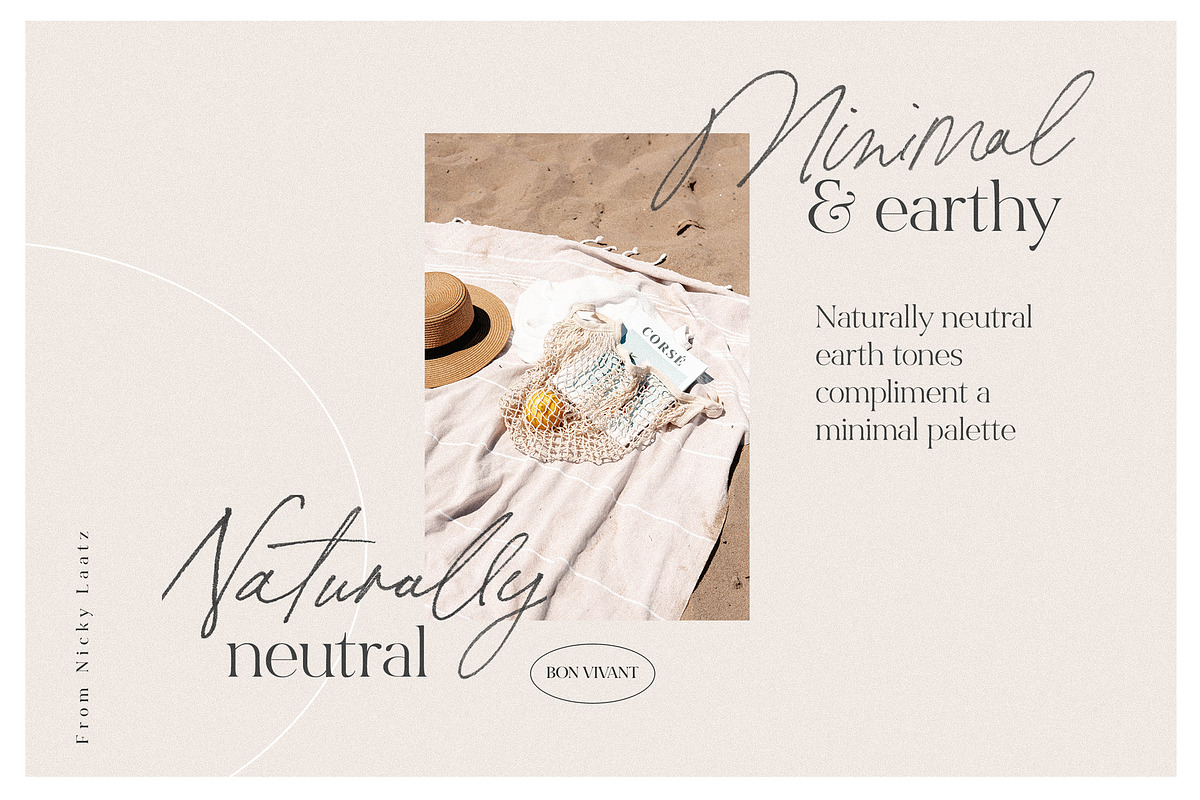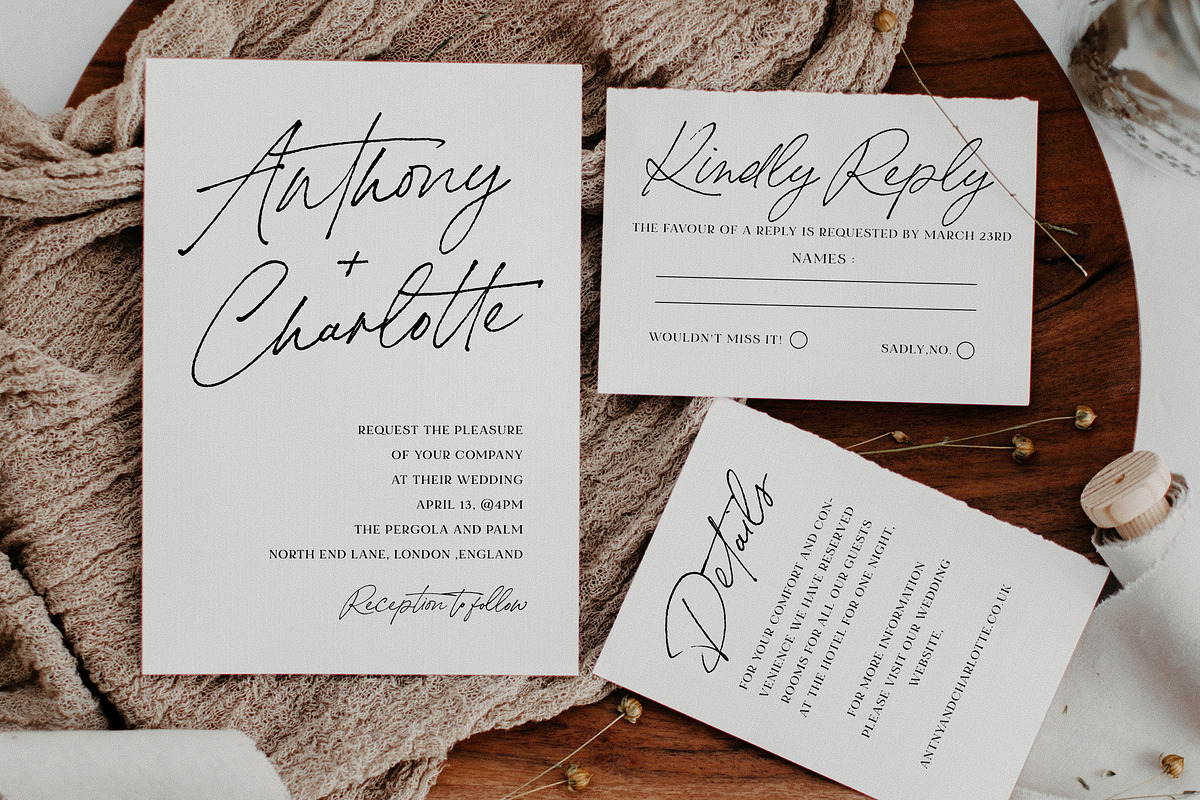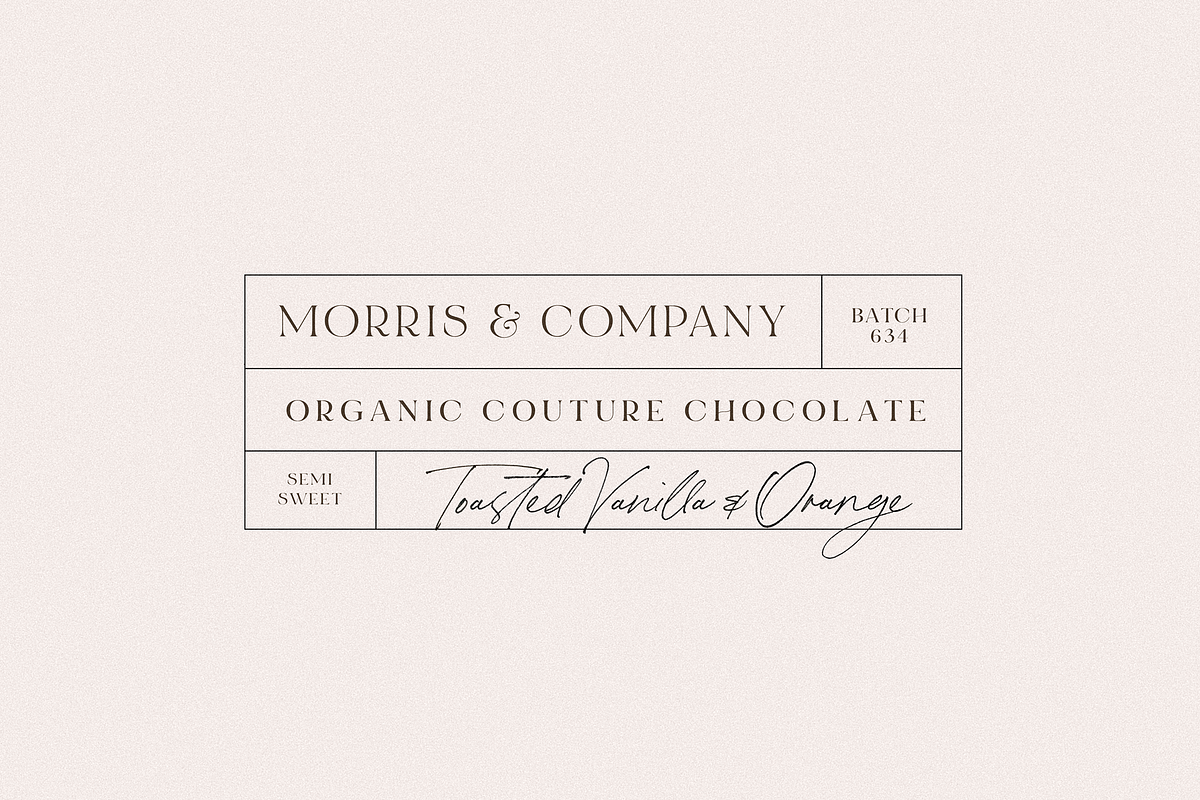
If you’ve got style and love all the luxuries in life, you’re Bon Vivant! Add a touch of luxury and style to your projects too, with the new Bon Vivant Font Collection. Included in the pack, are some free complimentary designer goodies to help you get your creative juices flowing! Flip through the previews above to get some creative inspiration and to see what you can make.